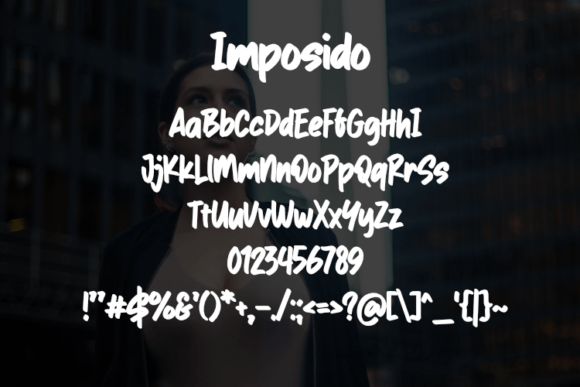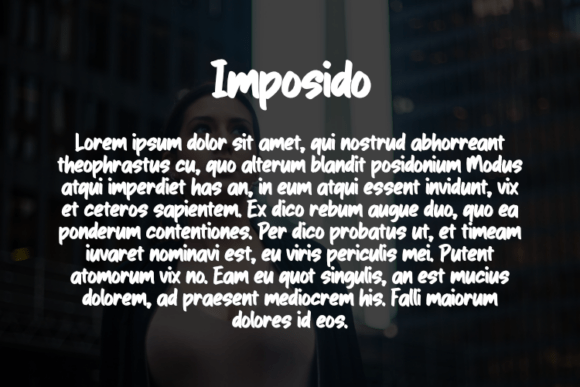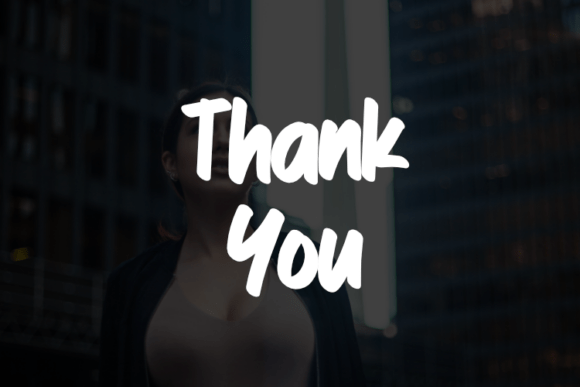
Introduction to Imposido Font
Do you remember that moment when a font just clicks and your creative project comes to life? For many designers, it’s a moment of pure joy and satisfaction. And that’s exactly what the Imposido Font is designed to deliver – a dynamic and versatile font that can elevate your designs to the next level.
Key Features of Imposido Font
- High-quality design resource with a unique, creative style perfect for various projects.
- Unique characteristics: The Imposido Font features a distinctive, modern design with clean lines and a professional touch.
Honest Review: Imposido Font
As a designer, I’m always on the lookout for high-quality design resources to elevate my creative projects. The Imposido Font is one such resource that caught my attention. Let’s dive into the details and see if it lives up to its promise.
- Unique and Creative Style: The Imposido Font offers a distinctive and creative style that’s perfect for adding a touch of elegance to your design projects.
- High-Quality Design: The font is well-designed and features a clear, readable format that’s ideal for both body text and headings.
- Limited Character Set: The font’s character set is somewhat limited, which may not be suitable for projects that require a wide range of characters.
Overall, I’m impressed with the Imposido Font’s potential as a design resource. While it has some limitations, its unique style and high-quality design make it a valuable addition to any designer’s toolkit. Whether you’re working on a creative project or simply looking for a new font to experiment with, the Imposido Font is definitely worth checking out.
Imposido Font is ideal for creating high-quality designs with a transparent background. Some common use cases include creating social media graphics, presentations, and brochures. To get the most out of Imposido Font, experiment with different font sizes, colors, and styles to find the perfect combination for your creative project.